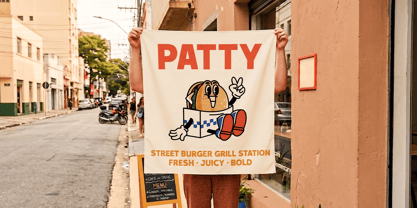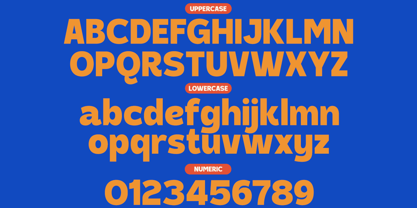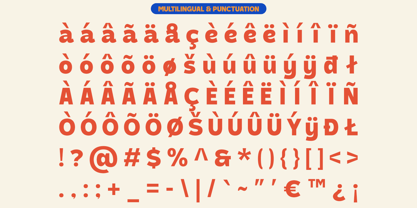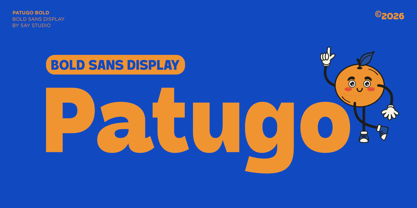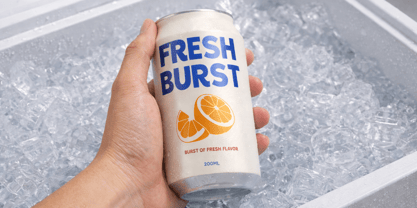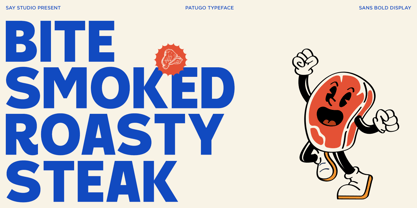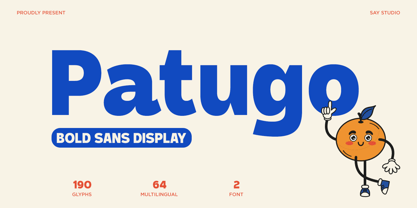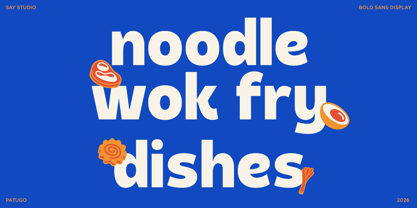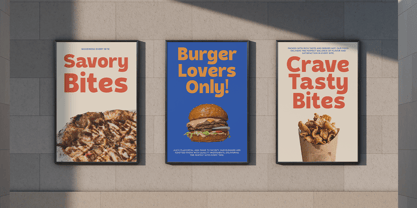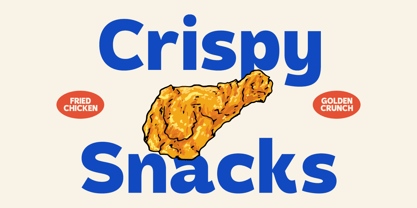
Patugo
by Say Studio
Patugo is a bold sans display font crafted to infuse energy, fun, and strong visual impact into your creative projects. Featuring chunky letterforms and smooth curves, Patugo embodies a playful yet confident personality that instantly captures attention. Its bold structure ensures maximum readability while maintaining a unique and approachable character.
Inspired by modern branding, cartoons, and vibrant advertising styles, Patugo is ideal for projects that demand to stand out. Whether you're designing posters, children's branding, social media content, packaging, or striking headlines, this font adds a lively and engaging touch. Its rounded shapes and bold weight make it highly versatile for both digital and print applications.
Patugo is the perfect choice for designers aiming to create bold, cheerful, and memorable visuals. From playful logos to colorful campaigns, this font effectively communicates joy, creativity, and a strong brand presence in every design.
Designers: Mussyayin
Foundry: Say Studio